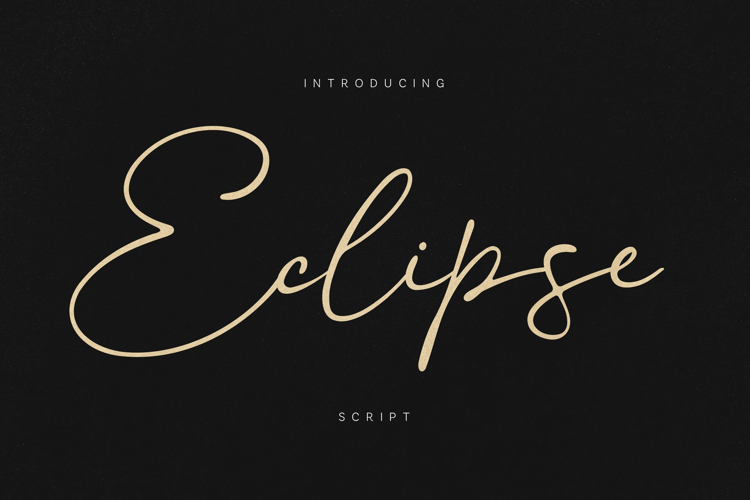
Eclipse Elegant Signature Script Font
Eclipse is a smooth and elegant signature script font designed to bring a natural handwritten feel to modern design projects. With flowing strokes, graceful curves, and a refined calligraphic rhythm, this typeface captures the beauty of authentic handwriting while remaining clean and highly readable.
The fluid letterforms create a sophisticated and expressive aesthetic, making Eclipse perfect for luxury branding, logos, wedding stationery, editorial layouts, and social media design. Its natural signature style gives projects a stylish appearance that feels both modern and timeless.
Eclipse works beautifully for branding identities, invitations, product packaging, fashion campaigns, and elegant typography compositions. The font balances delicate strokes with confident gestures, allowing designers to create striking visual statements with minimal effort.
The typeface includes uppercase letters, lowercase letters, numbers, punctuation, and extended multilingual characters, making it suitable for international design work.
Whether used for luxury branding, elegant signatures, or stylish editorial typography, Eclipse adds a refined handwritten character to your creative projects.